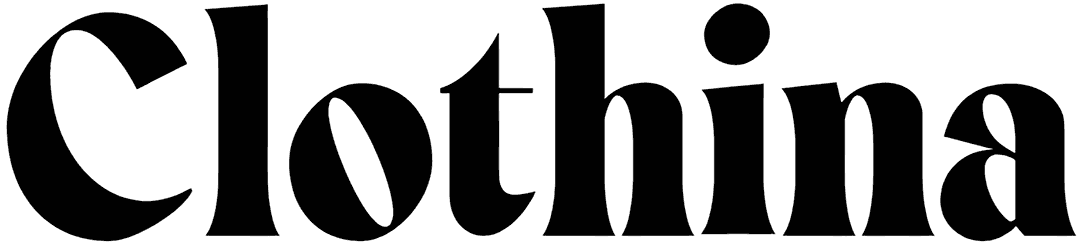
Clothina Font
Some fonts whisper elegance; others speak in a confident voice. Clothina manages both with remarkable poise. Its gentle curves, refined proportions, and open forms give your words a graceful rhythm without sacrificing visual strength. When you place type in a layout, whether it’s a logo, a headline, or packaging text, Clothina feels intentional and curated rather than generic or decorative.
It’s the kind of typeface you reach for when you want a design to feel crafted, not hurried: lifestyle branding, boutique fashion labels, editorial spreads, wedding stationery, or premium product packaging all benefit from that subtle sophistication. The charm of this magazine font isn’t just in how it reads; it’s in how it makes everything around it look more intentional and refined.